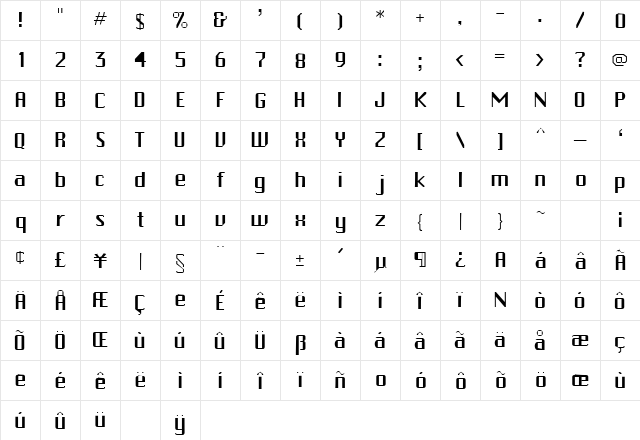
Complete BeijingLightSSK Regular glyph index. Displaying only characters natively supported by BeijingLightSSK Regular font.
BeijingLightSSK is a composed and adaptable typeface that performs quietly and consistently across a wide range of design contexts. Its slender proportions lend an understated elegance to any composition.